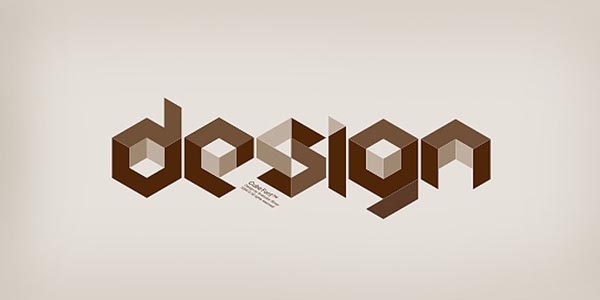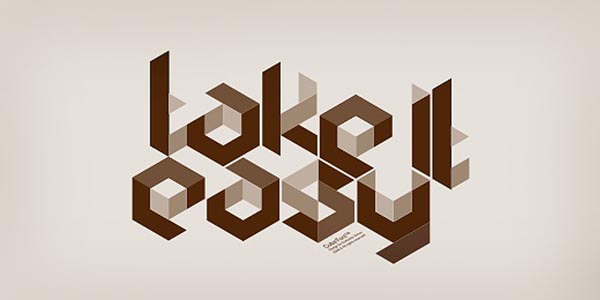
Cubic Font.
Cubic is a custom web font designed by Svetoslav Simov for Fontfabric. This spacial geometric typeface is applicable for any type of graphic design – web, printm or motion graphics.